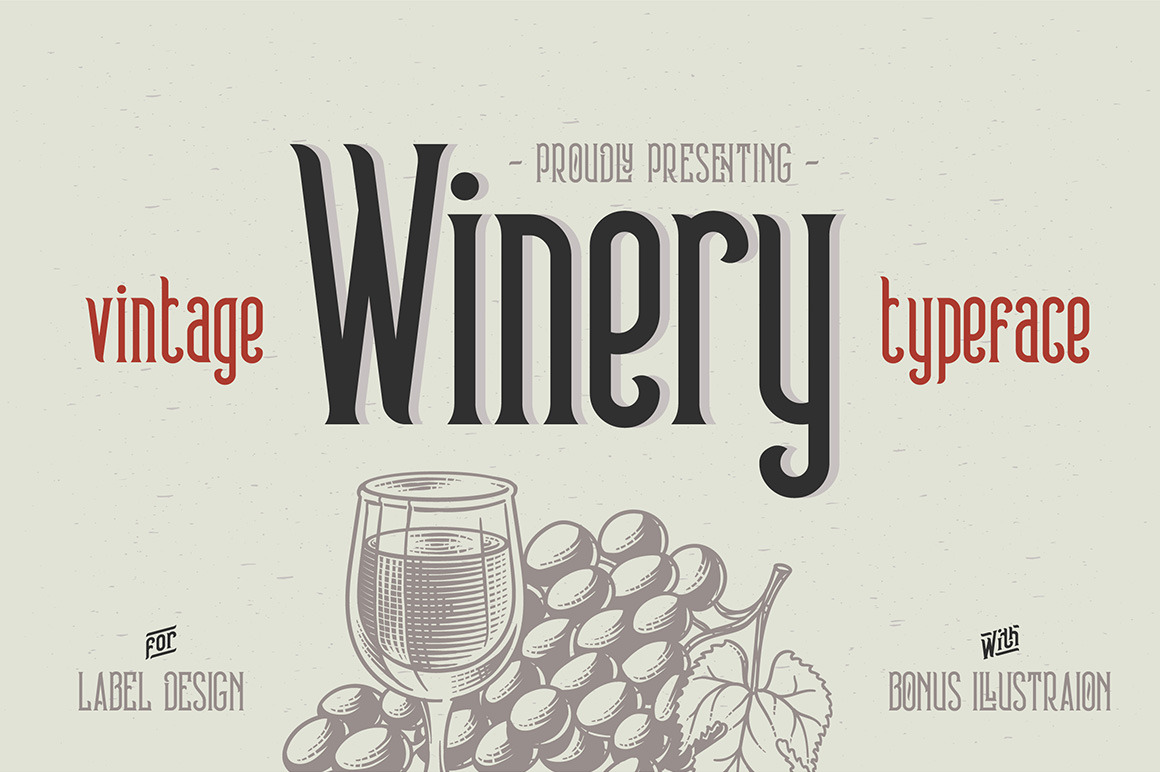
Winery typeface + bonus
Hi! Introducing vintage Winery typeface with handcrafted bonus illustration of vine. Tall condenced font, that is very compact, but has its own style – perfect for label design, or whatever you like :)
Note: the font has 18 ligatures (caps letters will be autimatically replaced if this feature is enabled in your software). Additional characters can be accessed via glyphs panel. Font contains only latin characters.